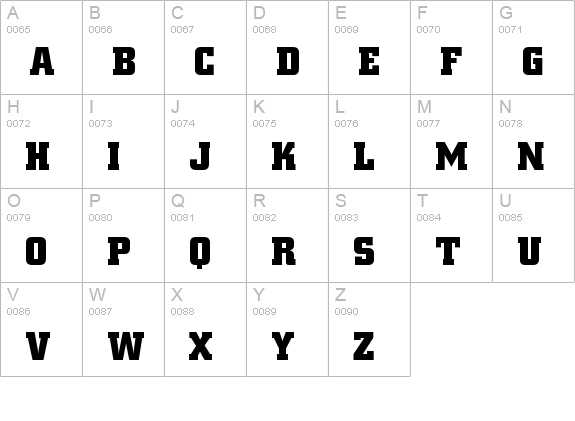
City (R) Bold is a strong, high-contrast variant in the City typeface family \xE2\x80\x94 well suited to headlines, attention-grabbing titles, and strong calls-to-action.
City (R) Bold font is a sleek and modern typeface that exudes confidence and sophistication. This bold font is perfect for creating eye-catching headlines, logos, or any design project that needs a strong and impactful look. With its clean lines and sharp edges, City (R) Bold commands attention and makes a bold statement. The best part? City (R) Bold font is available for free download at FontsMarket.com. You can easily add this stylish font to your collection and use it in your projects without any cost. So why wait? Elevate your designs with the striking City (R) Bold font today!